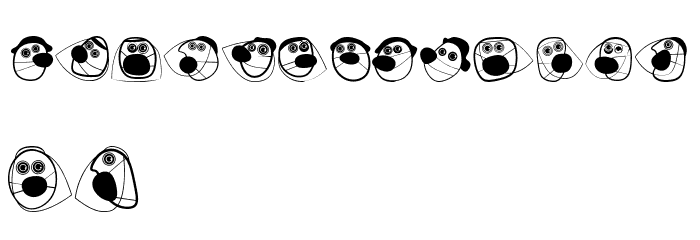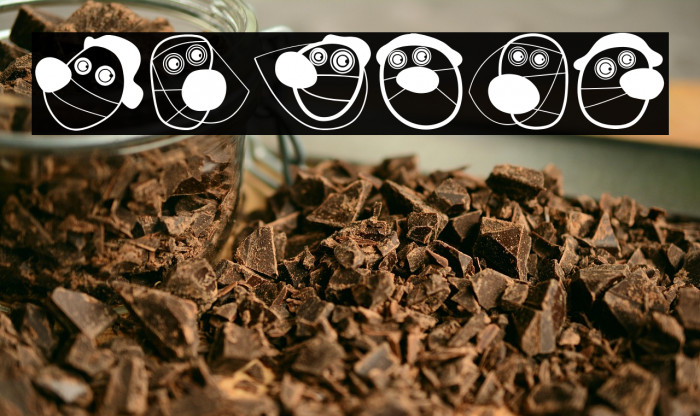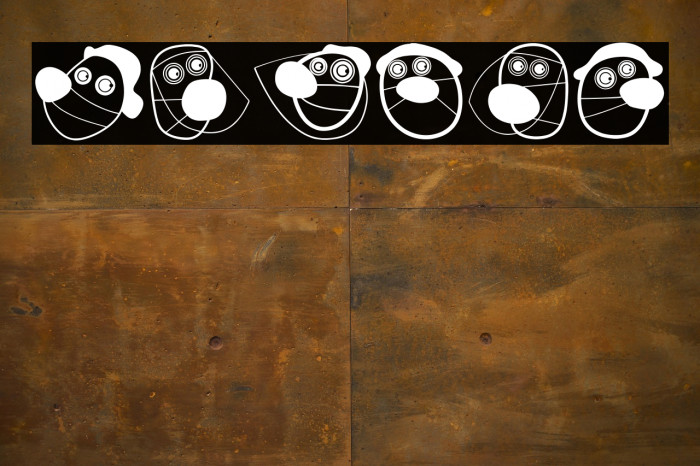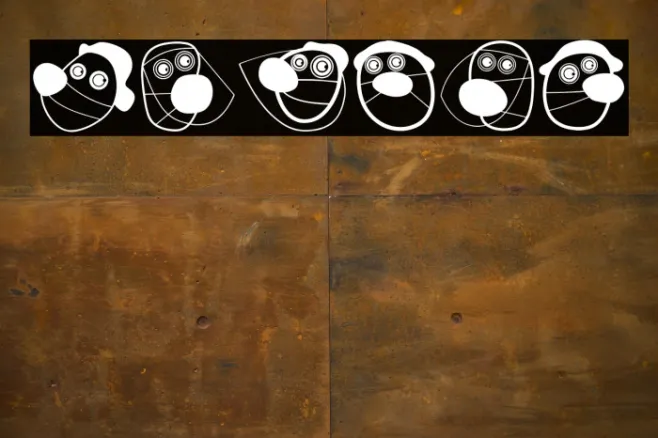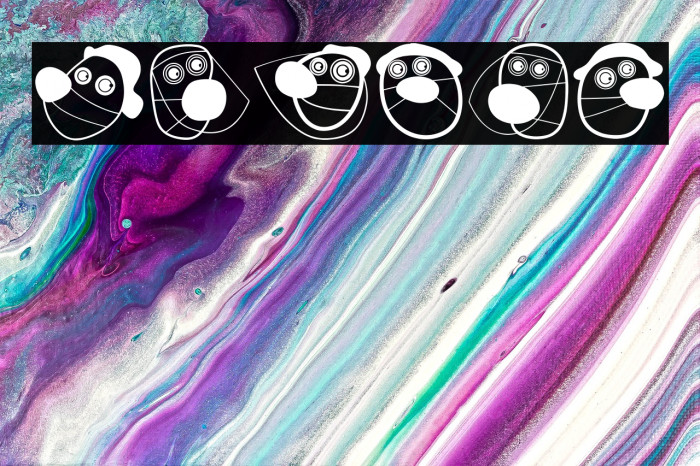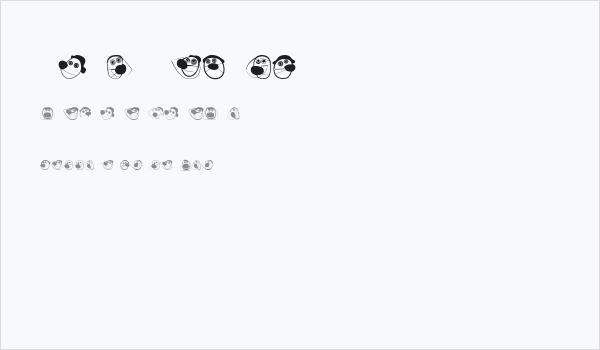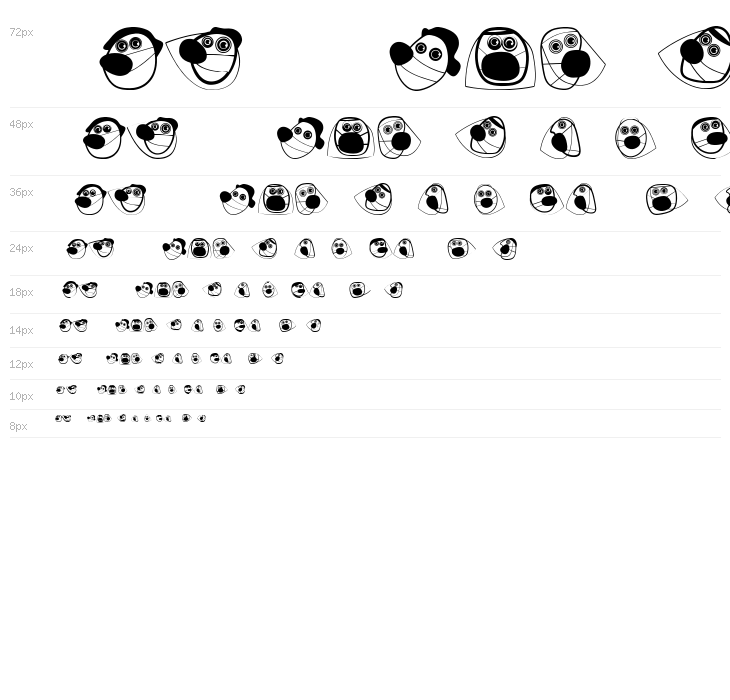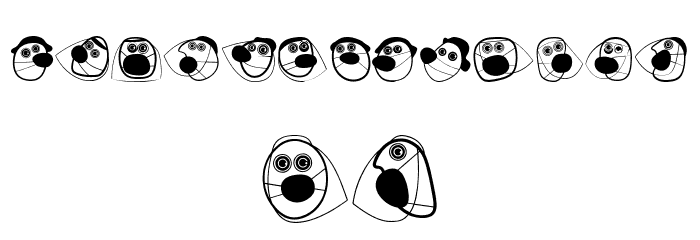
Risk Regular Font
Risk Regular Description
This font is a playful and whimsical design featuring cartoonish faces within each character. Each letter and symbol is uniquely crafted with a distinct personality, making it stand out as a decorative and fun typeface. The characters are enclosed within rounded shapes, giving them a cohesive and uniform appearance. The design is highly illustrative, with bold outlines and expressive features that add a sense of humor and creativity. This font is not suitable for traditional text but excels in creating a lively and engaging visual experience.